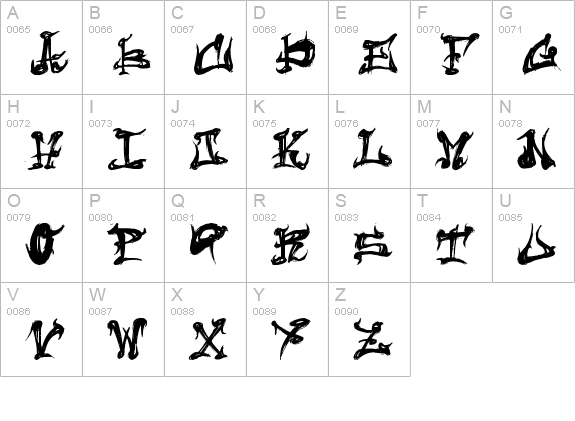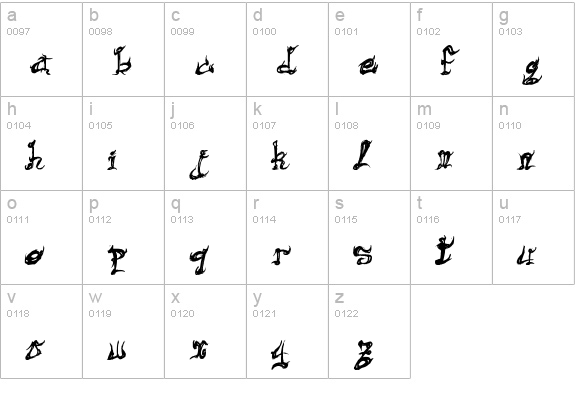
Introducing Dark Flame font, a striking and bold typeface that exudes an air of mystery and sophistication. With its sharp edges and intricate detailing, Dark Flame is perfect for creating eye-catching headlines, logos, and designs that demand attention. This unique font is sure to make a powerful statement in any project, whether it be for print or digital media. Its edgy yet elegant appearance sets it apart from traditional fonts, making it a standout choice for those looking to add a touch of drama to their work. And the best part? Dark Flame font is completely free to download at FontsMarket.com. So go ahead and unleash your creativity with this captivating typeface that is sure to leave a lasting impression.